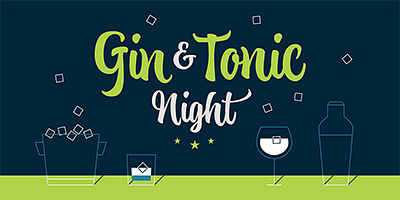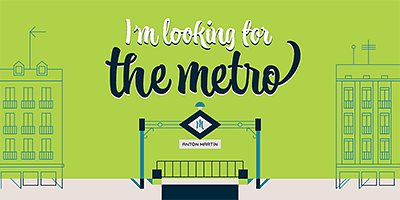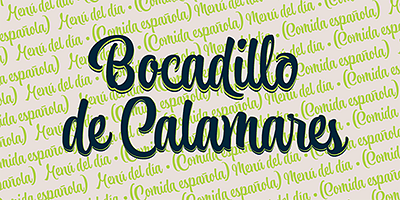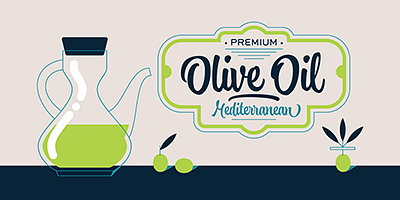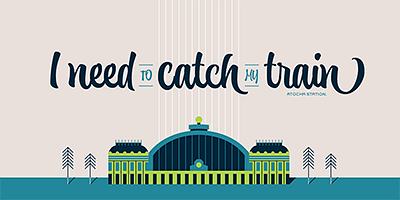
Since his arrival in Spain, Joluvian has been attached to the city’s central area, specifically to the renowned Atocha Street and its railroad station. It was precisely on that street that Joluvian and Mauco Sosa, his friend and partner, decided to establish the Patera Studio: a charming creative space that birthed the concept for this new font which they proudly named Atocha Script.